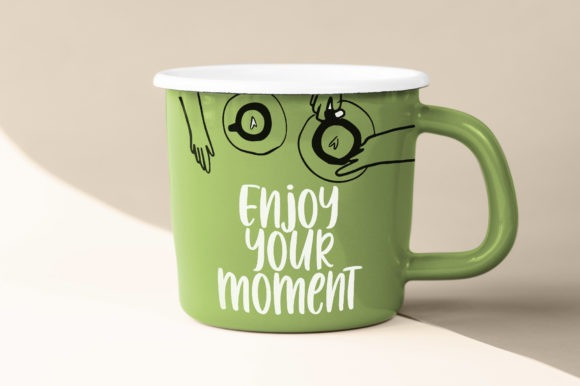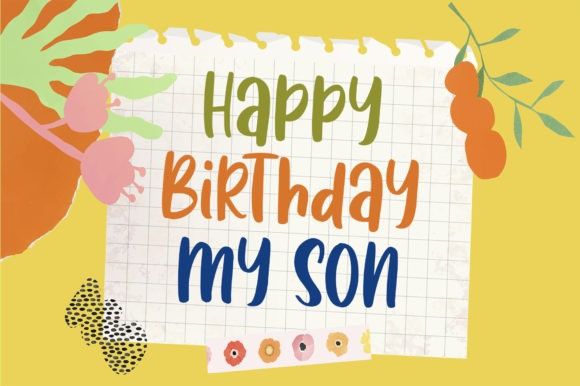
Fun Frog Font
Fun Frog Font is a cheery and fun display font, featuring charming characters. Add this font to your most creative ideas, and notice how it makes them stand out!